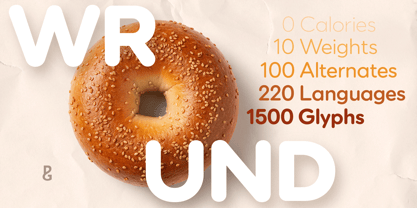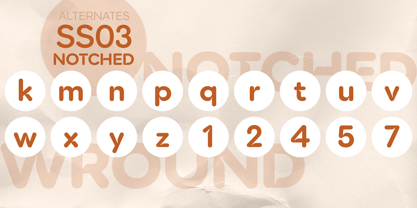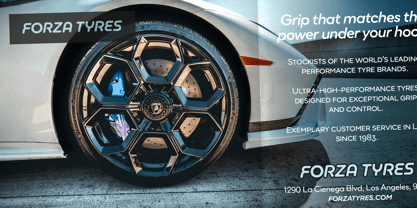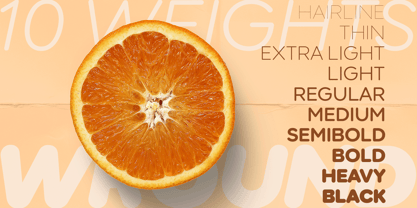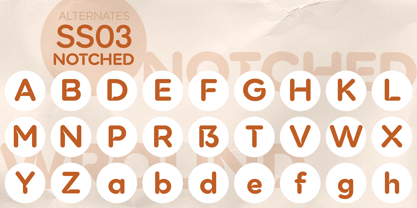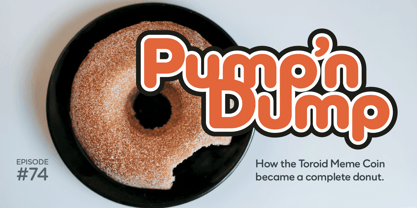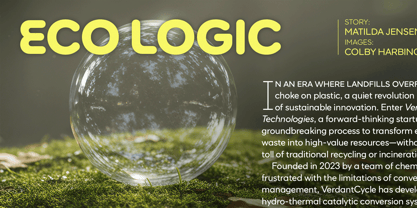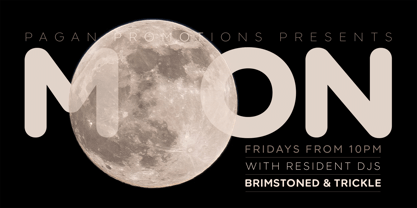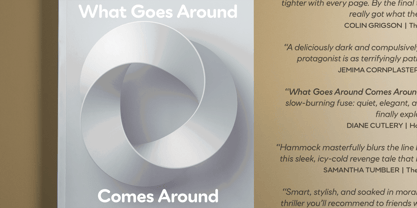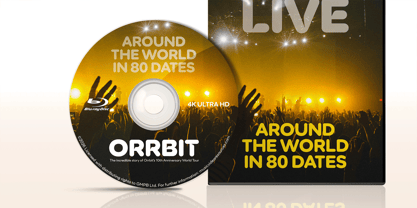
Wround
Wround is a true all-rounder as not only does it excel in both text and display settings, it’s also perfectly (optically) round and deliciously soft within each and every glyph. With three distinctive stylistic sets, Wround aims to be the most versatile and complete rounded typeface available. This typeface makes for a very comfortable reading experience, making it perfect for body text but Wround is also a branding designer’s dream. It can expertly handle logotype, headlines and titling. Impactful and charismatic in its standard form, Wround allows you to express other voices when you activate its stylistic sets. With three distinctive styles to choose from, you’ll have imposing headlines, masterful logos, and striking book and movie titles developed in no time at all. Stylistic Set 1 – Stencil. This is a fairly straightforward stencil style that has carefully-chosen cuts right through numerous characters. Stylistic Set 2 – Wrounder. The alternates in this set embody an even more rounded aesthetic. Some spurs are removed while other glyphs are forced to adhere to circular construction, resulting in some quite unusual designs. Stylistic Set 3 – Notched. A slight cut into the body creates the illusion of a third dimension as each vertical casts a shadow on to the horizontal of each glyph. There are 20 fonts in this family, ranging from Hairline to Black in both roman and italic styles. Wround has an extensive character set that covers all Latin European and Cyrillic languages. View hi-res visuals and download a type sample from my website.